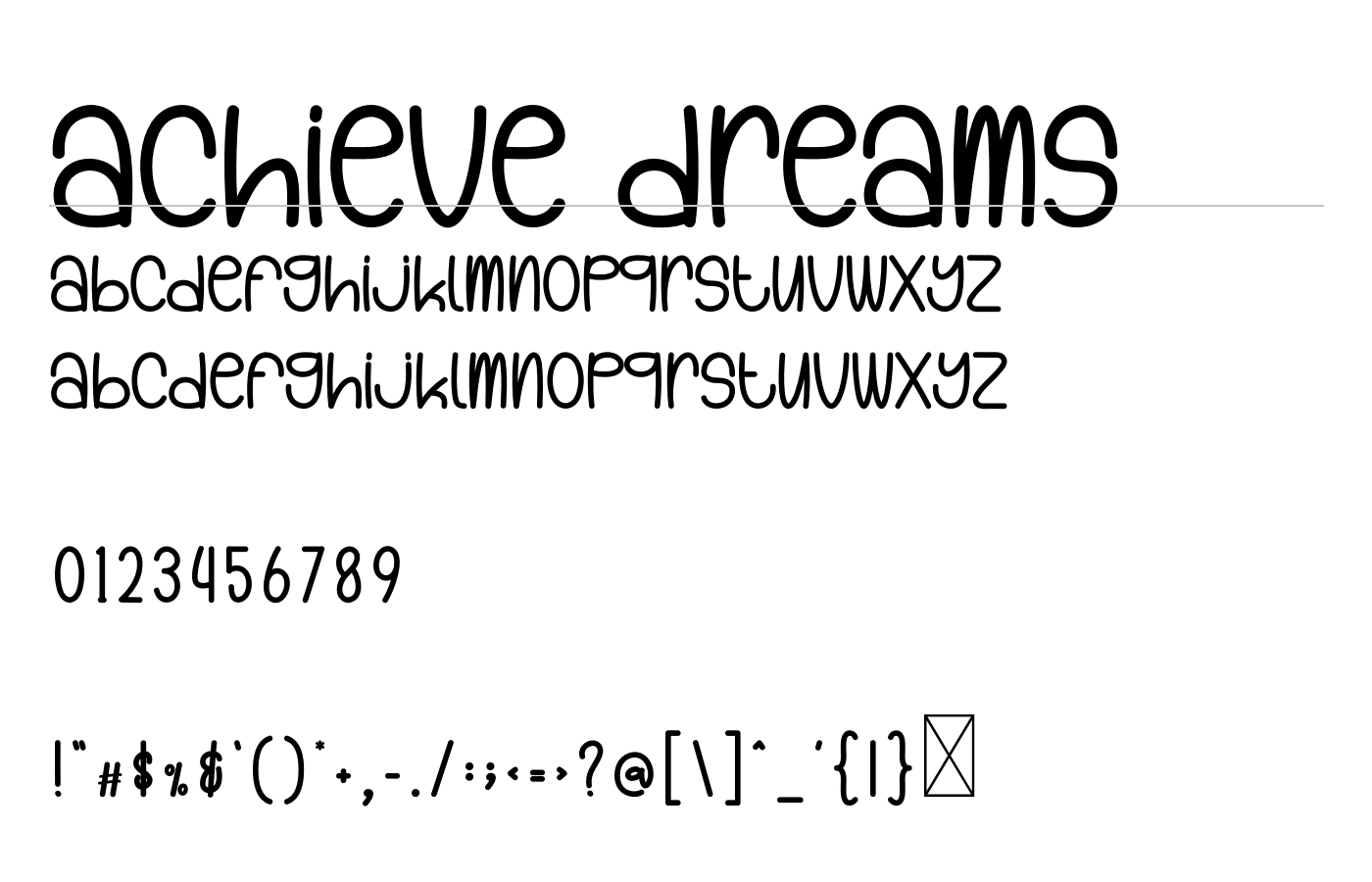
Achieve Dreams is a playful and casual sans serif font with a light weight and tall, narrow letterforms that give it an airy and friendly feel. Its whimsical, hand-drawn style and slightly uneven strokes make it perfect for creative, child-focused, or informal designs. This font works well for logos, headlines, and packaging where a fun and approachable personality is desired.
Achieve Dreams Font
About Achieve Dreams Font